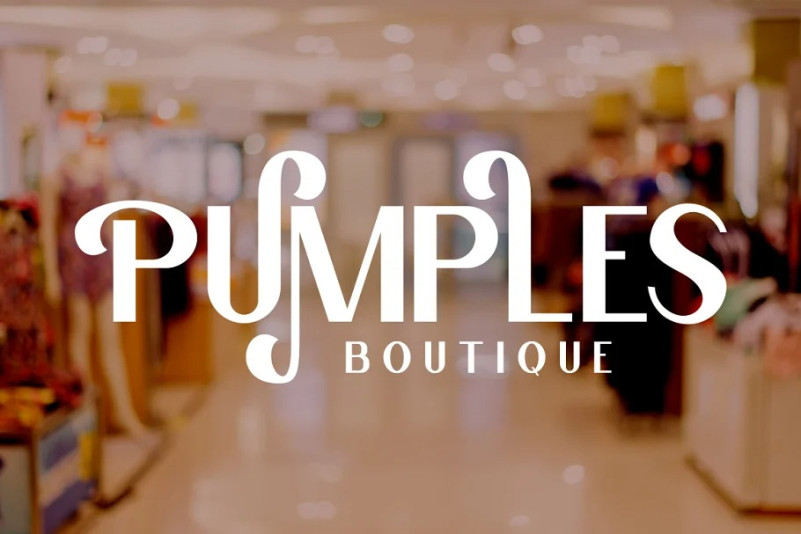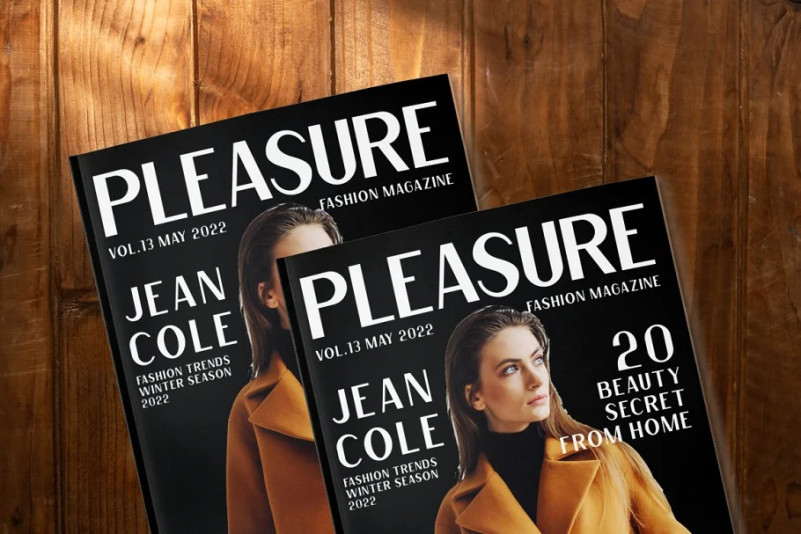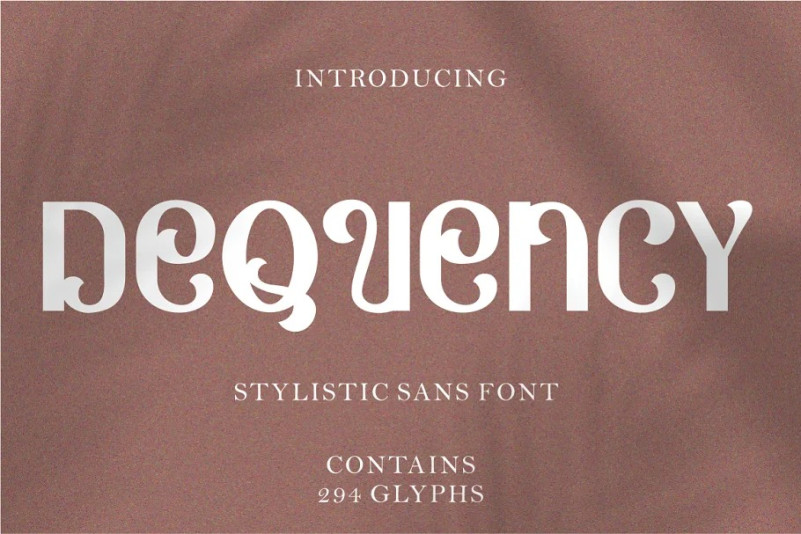
Dequency Font
Dequency Display Font. Inspired from unique typography and lettering in the Stylistic alphabet combine with Sans style. With a total of 534 glyphs with 359 alternate, you can make letter combinations for lettering with a lot of options. Come with open type feature ( a lot of alternates and end swash), its help you to make great lettering. Dequency best uses for Logotype, heading,cover, poster, logos, quotes, product packaging, header, merchandise, social media & greeting cards and many more. Dequency is also support multi language.